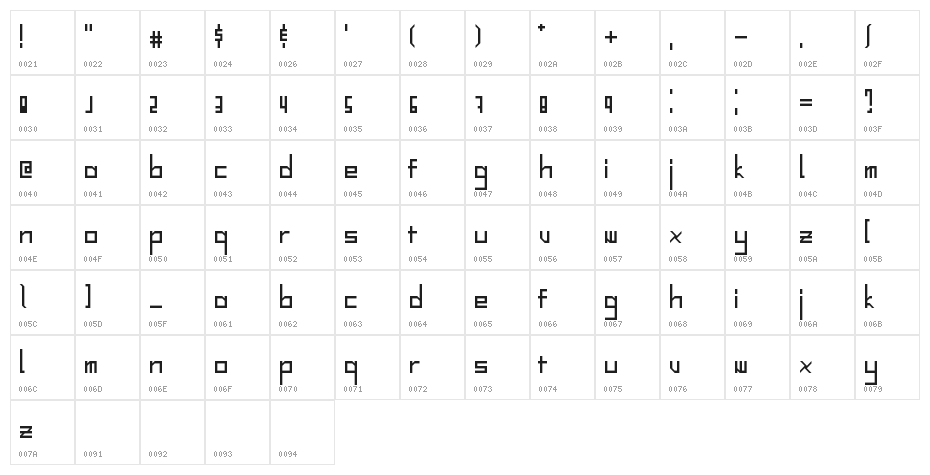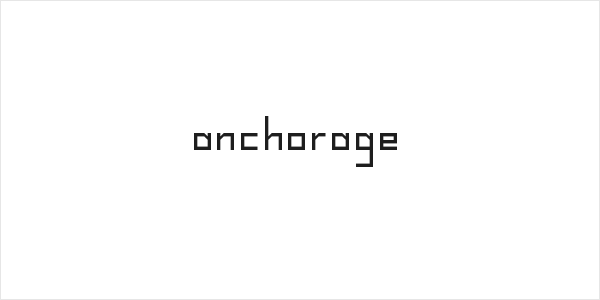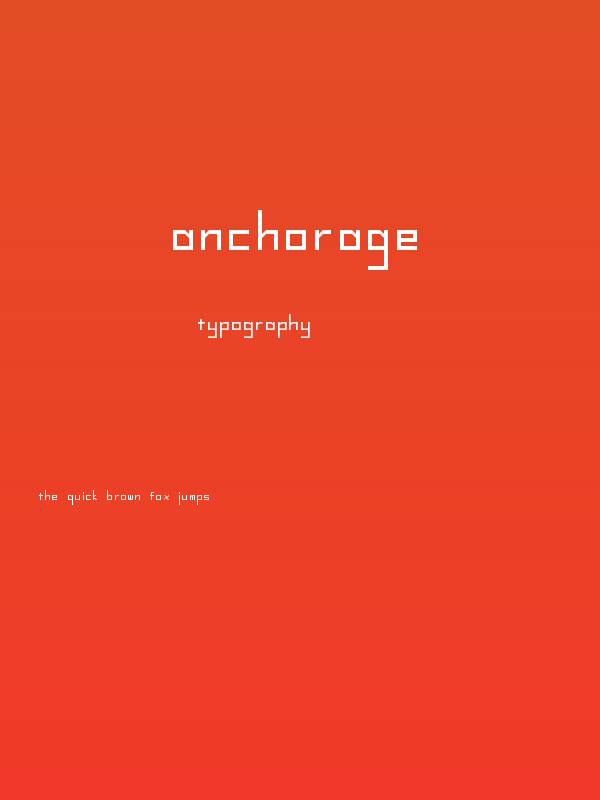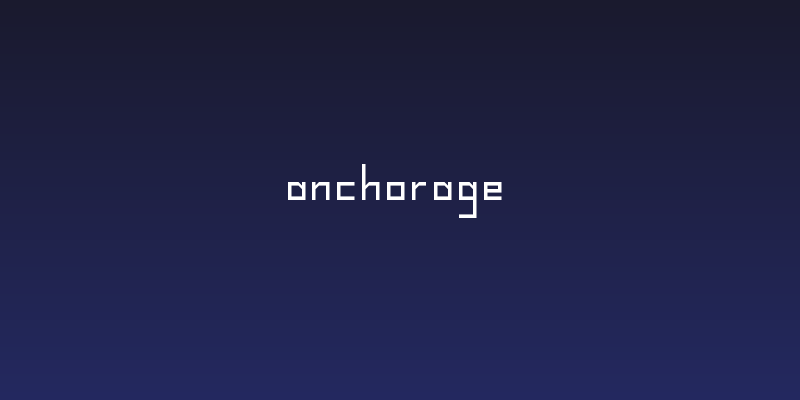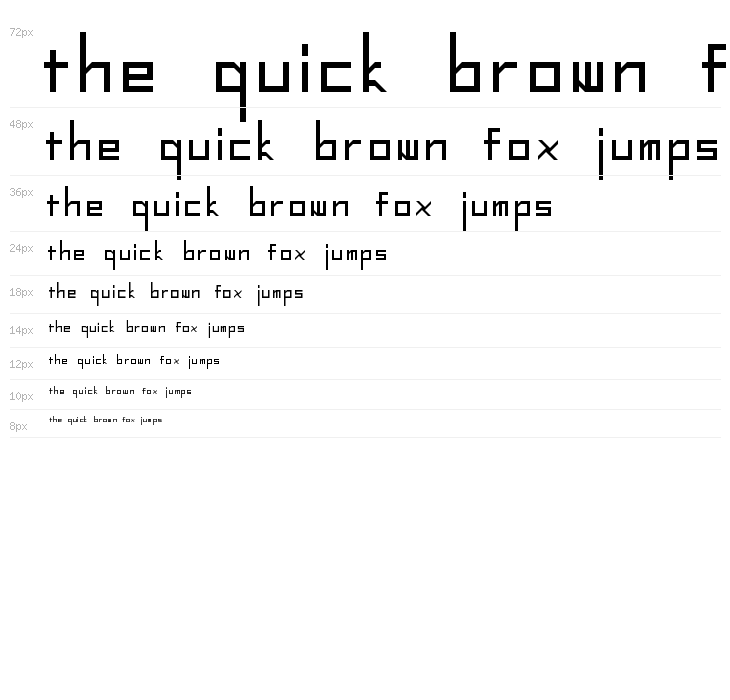
Anchorage Font
Anchorage Description
This font features a geometric and modern design with a strong emphasis on straight lines and sharp angles. The characters are constructed with a consistent stroke width, giving it a monospaced appearance. The uppercase and lowercase letters share similar structural elements, enhancing the uniformity of the typeface. The numerals and special characters maintain the same geometric style, ensuring a cohesive look across all glyphs. The overall design is minimalistic, with a futuristic feel that is both clean and highly legible. This font is ideal for projects that require a modern and technical aesthetic.
| Use Case | Logos, Digital interfaces, Coding environments |
| Proposed Projects | Ideal for technology branding, digital interfaces, coding environments, and modern graphic design projects. |